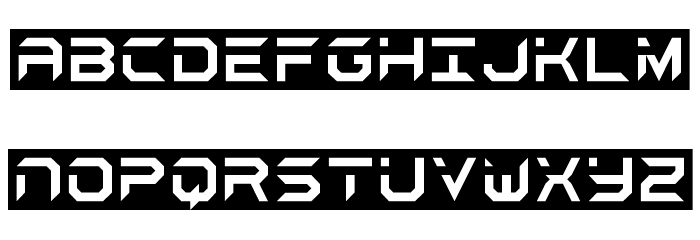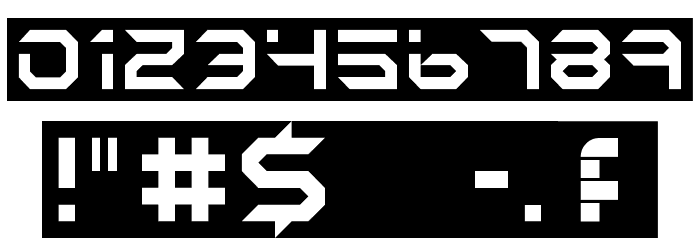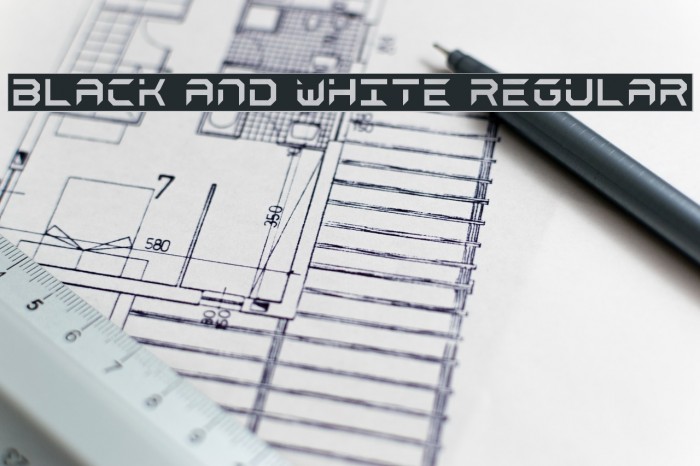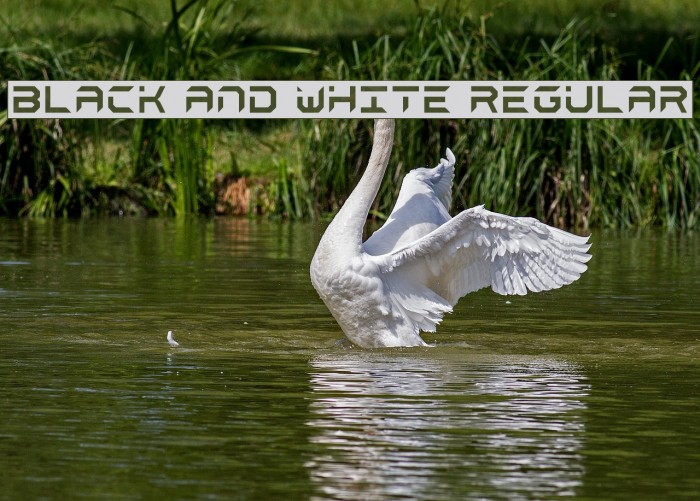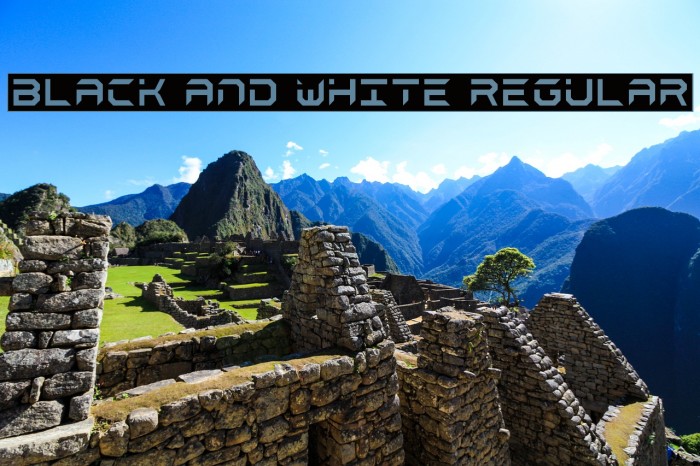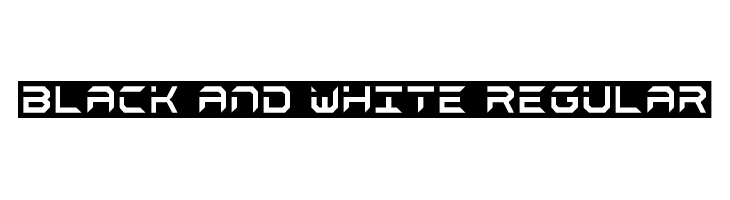
black and white Regular Font
This font features a bold, geometric design with a futuristic and industrial feel. The characters are constructed with sharp angles and straight lines, creating a sense of precision and modernity. The uppercase and lowercase letters maintain a consistent style, with a unique cut-out effect that adds depth and interest. The numerals and special characters follow the same design principles, ensuring a cohesive look across all elements. This font is highly legible and makes a strong visual impact, ideal for projects that require a bold statement.
A bold, geometric font with a futuristic and industrial design.
- Proposed Projects: Ideal for branding, posters, video game graphics, and sci-fi themed projects.